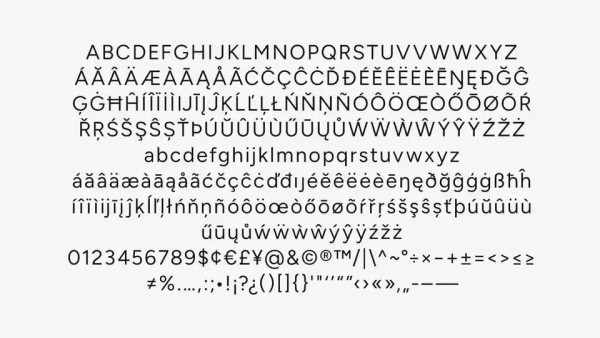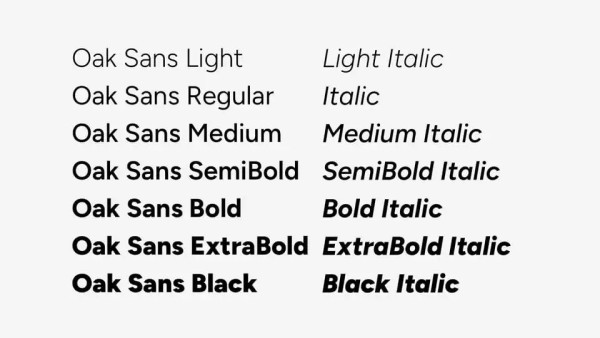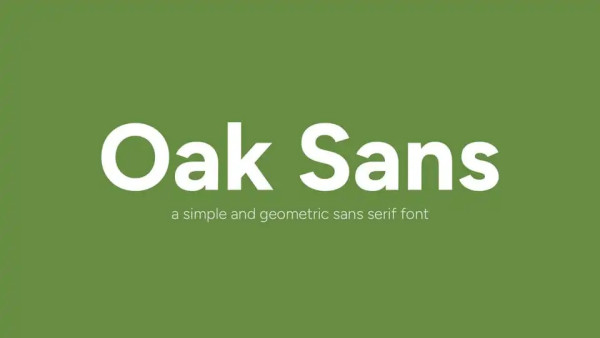
Oak Sans Font
Oak Sans Font is a simple variable sans serif font based on Figtree font by Erik Kennedy. It is a versatile mix of geometric and neo-grotesk design which offers the power of a display weights at large sizes and ease of legibility in smaller, long-form text, giving it flexibility for a broad range of uses.